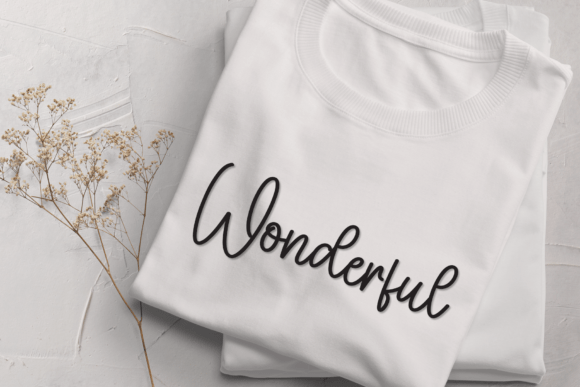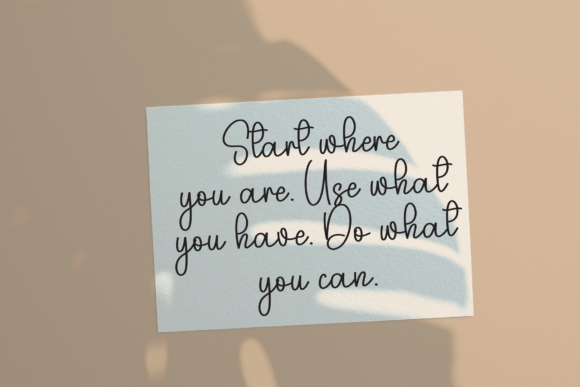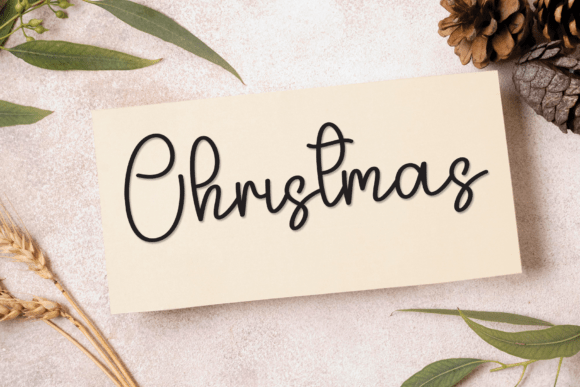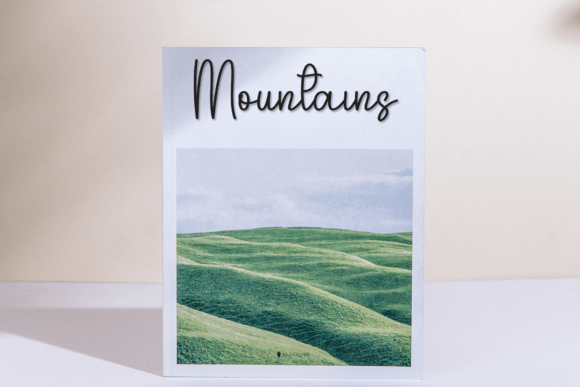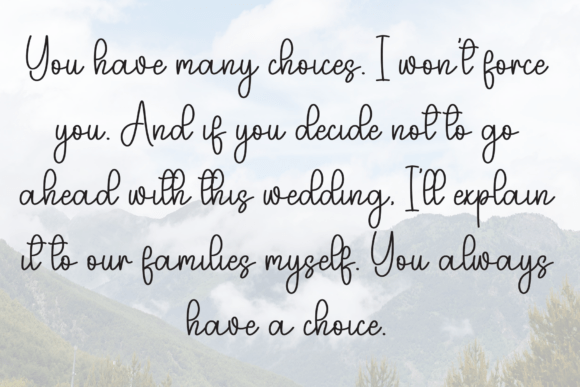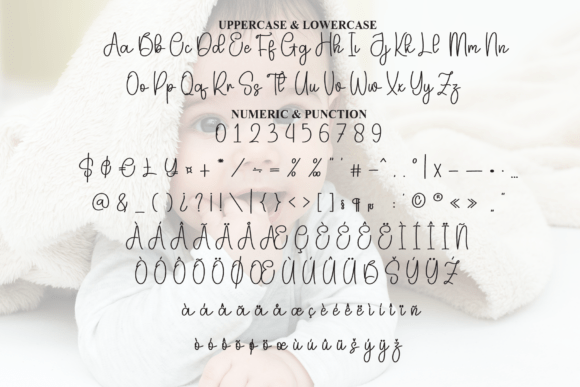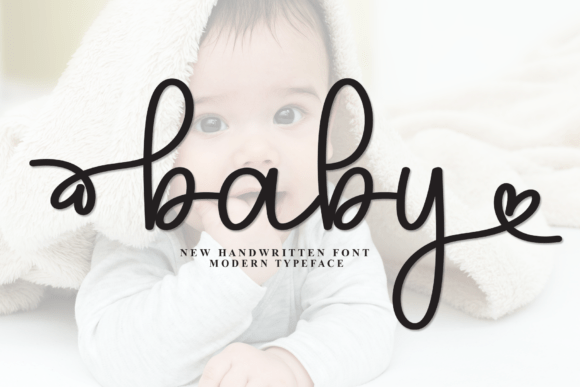
Baby Font: The Handcrafted Script Font for Adding a Touch of Magic to Your Designs
Are you looking for a font that can add a dash of magic to your wedding invitations, personalized greeting cards, or any design project? Look no further than the Baby Font, a handcrafted script font that exudes genuine warmth and charisma. This alluring typeface is the essence of joy and celebration, seamlessly blending sophistication with a sprinkle of quirkiness.
The Charm of Handcrafted Typography
In an era of digital design, handcrafted typography stands out for its unique and personal touch. The Baby Font is a genuinely handcrafted font, carefully crafted to bring a sense of warmth and personality to your designs. Its soft, flowing lines and delicate curves evoke a sense of whimsy and romance, making it perfect for designs that require a touch of elegance and sophistication.
The Baby Font is particularly well-suited for wedding invitations and personalized greeting cards. Its romantic and whimsical feel makes it perfect for couples looking to add a touch of magic to their special day. Whether you’re designing a formal wedding invitation or a playful birthday card, this font is sure to impress. Its captivating visual impact promises to spark delight and command attention, making your designs truly unforgettable.
A Font that Blends Sophistication with Quirkiness
One of the standout features of the Baby Font is its ability to blend sophistication with quirkiness. Its elegant lines and curves give it a refined, sophisticated feel, while its playful flourishes and irregularities add a touch of whimsy and personality. This unique blend of styles makes it perfect for designers and crafters looking to add a dash of magic to their designs.
Adding a Touch of Exclusivity to Your Designs
The Baby Font is the perfect way to add an exclusive touch to your designs. Its handcrafted nature and unique personality make it a one-of-a-kind font that will set your designs apart from the rest. Whether you’re designing for a client or working on a personal project, this font is sure to impress. Its soft charm and captivating visual impact will draw the viewer in and leave a lasting impression.
Tips for Using the Baby Font in Your Designs
Here are a few tips for using the Baby Font in your designs:
- Use it for headings and titles: The Baby Font is perfect for headings and titles, where its bold and playful feel can really shine.
- Pair it with a sans-serif font: For body text, pair the Baby Font with a clean and simple sans-serif font to create a beautiful contrast.
- Experiment with colors: The Baby Font looks great in a variety of colors, from soft pastels to rich jewel tones. Experiment with different colors to find the perfect fit for your design.
- Don’t be afraid to get creative: The Baby Font is a versatile font that can be used in a variety of design projects. Don’t be afraid to get creative and try new things!
The Baby Font is a handcrafted script font that is sure to add a touch of magic to your designs. Its unique blend of sophistication and quirkiness makes it perfect for wedding invitations, personalized greeting cards, and any design project that requires a dash of elegance and whimsy. With its captivating visual impact and soft charm, this font is sure to spark delight and command attention. So why wait? Discover the allure of the Baby Font and take your designs to the next level.
Key Features of the Baby Font:
- Handcrafted script font
- Unique blend of sophistication and quirkiness
- Perfect for wedding invitations and personalized greeting cards
- Captivating visual impact and soft charm